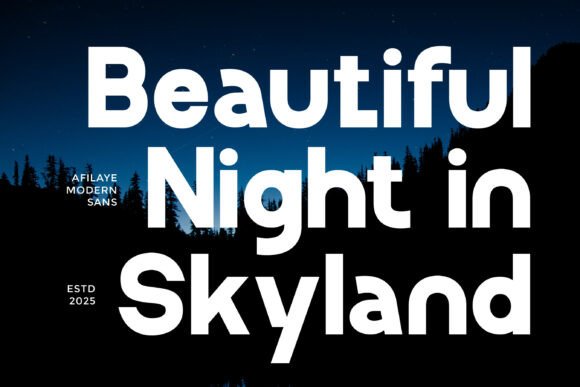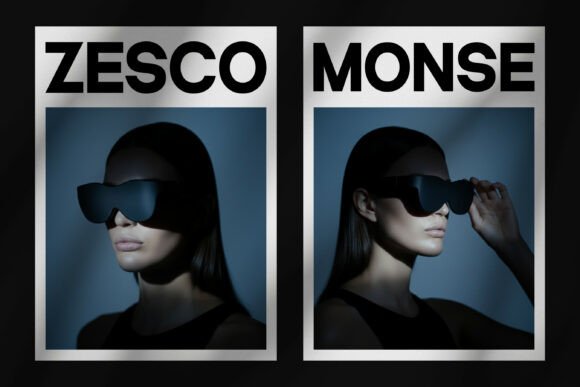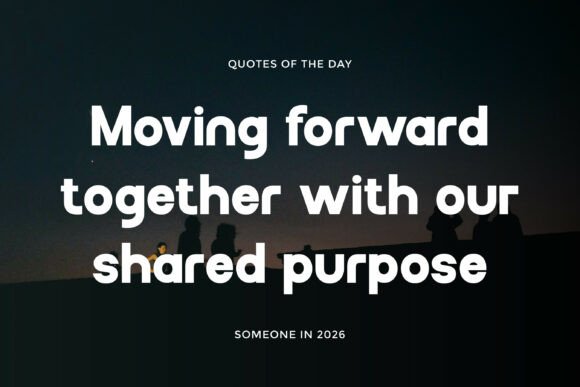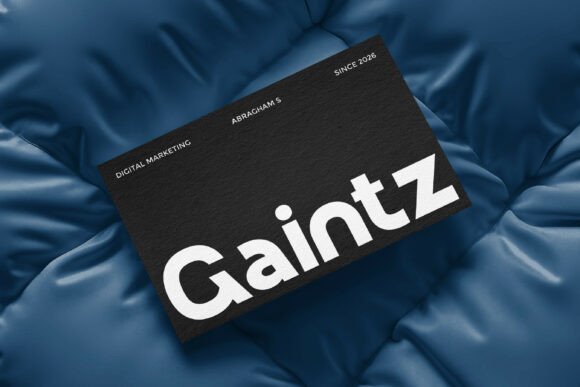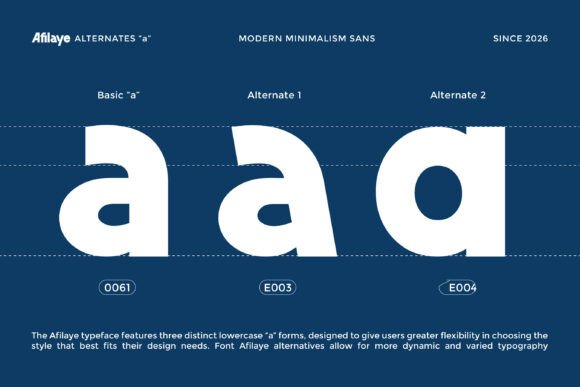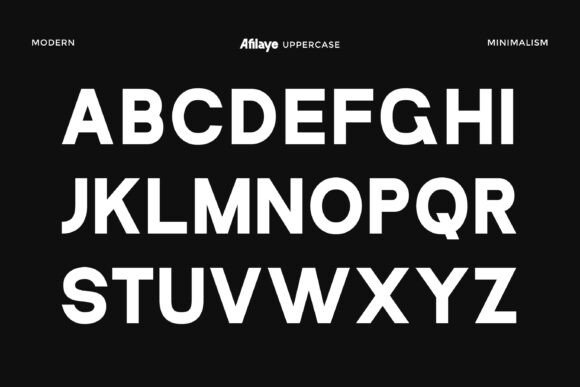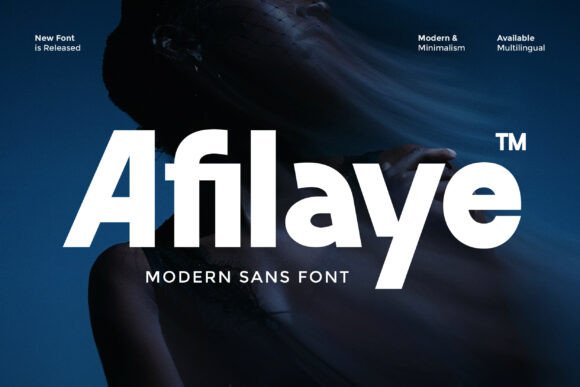
Afilaye Font: The Epitome of Modern Sans Typography
In the realm of typography, the right font can elevate a design from mundane to extraordinary. For those seeking a modern sans typeface that exudes confidence, versatility, and refinement, look no further than Afilaye. This sleek and sophisticated font is specifically designed to meet the demands of contemporary design, making it an indispensable tool for creatives.
The Design Philosophy Behind Afilaye
Afilaye’s design is rooted in a bold, clean, and minimalist aesthetic. Its smooth curves, strong geometry, and balanced proportions work in harmony to create a visual style that is both modern and timeless. This thoughtful design approach ensures that Afilaye remains legible and impactful across various mediums, from branding and headlines to posters, editorial layouts, and web design.
Key Features of Afilaye Font
- Bold and Clean Aesthetic: Afilaye’s bold, clean lines make it perfect for creating striking headlines and attention-grabbing titles.
- Smooth Curves and Geometry: The font’s smooth curves and geometric shapes lend a sense of sophistication and elegance to any design.
- Balanced Proportions: Afilaye’s balanced proportions ensure that the font remains harmonious and visually appealing, even at varying sizes.
- Excellent Readability: Afilaye’s design prioritizes readability, making it suitable for body text and longer content.
- Versatility: With its neutral and adaptable design, Afilaye can be used across a wide range of applications, from digital interfaces to print materials.
Applications of Afilaye Font
Afilaye’s versatility makes it an excellent choice for various design applications, including:
- Branding: Establish a strong visual identity with Afilaye’s confident and modern aesthetic.
- Headlines and Titles: Create striking headlines and titles that demand attention.
- Posters and Flyers: Add a touch of sophistication to your print materials with Afilaye’s clean and elegant design.
- Editorial Layouts: Enhance the readability and visual appeal of your editorial content with Afilaye’s balanced proportions and smooth curves.
- Web Design: Elevate your digital interfaces with Afilaye’s modern sans aesthetic and excellent readability.
Why Choose Afilaye Font?
In a world where typography plays a crucial role in shaping brand identities and design aesthetics, Afilaye offers a unique combination of style, versatility, and functionality. By choosing Afilaye, designers and crafters can:
- Enhance Visual Impact: Create designs that stand out with Afilaye’s bold and modern aesthetic.
- Streamline Workflow: With its excellent readability and versatility, Afilaye can be used across multiple design applications, reducing the need for multiple fonts.
- Establish Brand Consistency: Afilaye’s neutral design makes it an excellent choice for establishing a consistent visual identity across various platforms.
Afilaye font is a masterclass in modern sans typography, offering a perfect blend of style, versatility, and functionality. Whether you’re a designer, crafter, or simply someone who appreciates beautiful typography, Afilaye is an excellent addition to your design toolkit. With its bold, clean aesthetic, smooth curves, and balanced proportions, Afilaye is poised to elevate your designs and help you establish a strong visual identity.